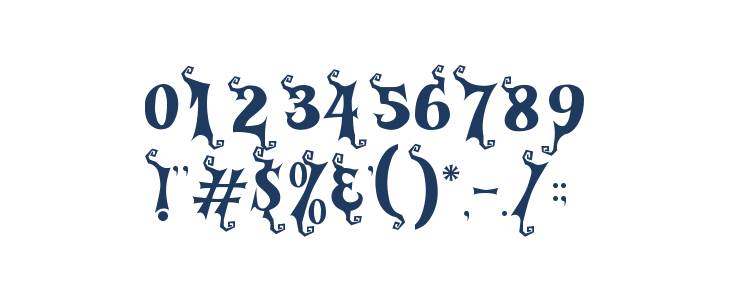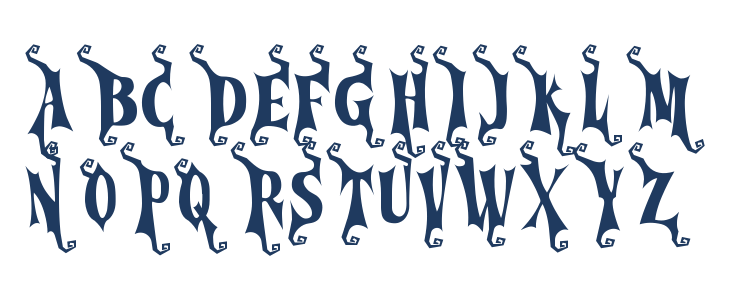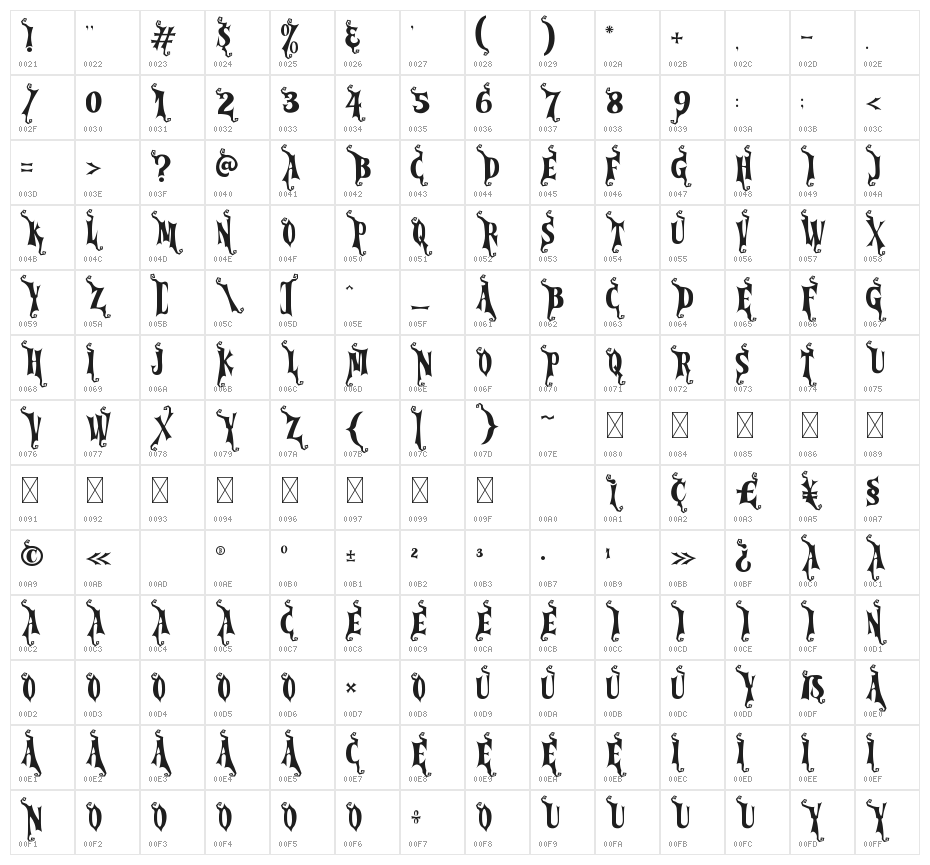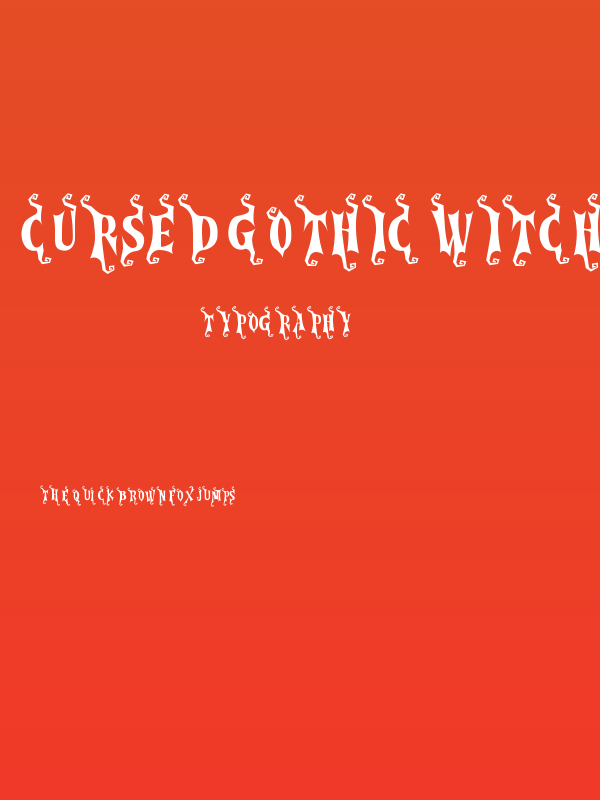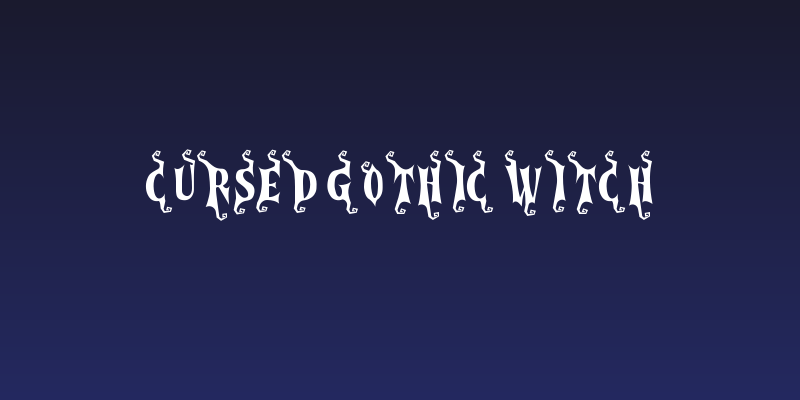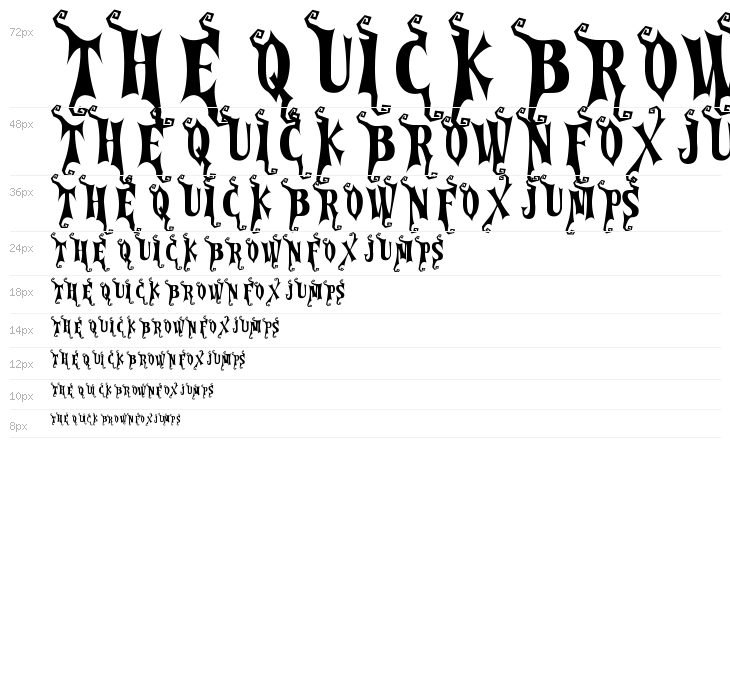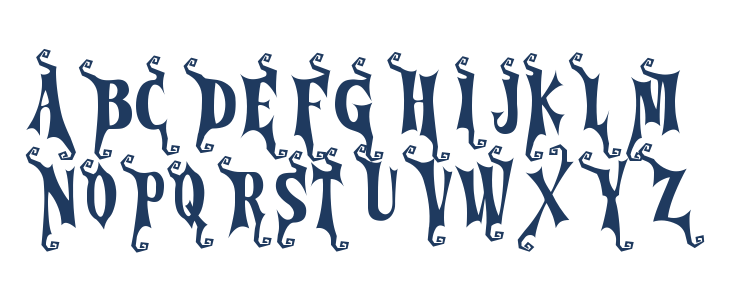
Cursed Gothic Witch Font
Cursed Gothic Witch Description
A highly decorative display font with exaggerated, twisted serifs and whimsical, irregular shapes, evoking a spooky, gothic, and mystical atmosphere. The letterforms feature curled terminals and uneven strokes, giving a hand-drawn, enchanted feel.
| Overall Style | Decorative, Gothic, Spooky, Fantasy |
| Use Case | Headlines, Posters, Logos, Themed Invitations |
| Proposed Projects | Halloween posters, fantasy book covers, witchcraft-themed branding, party invitations, spooky event graphics. |